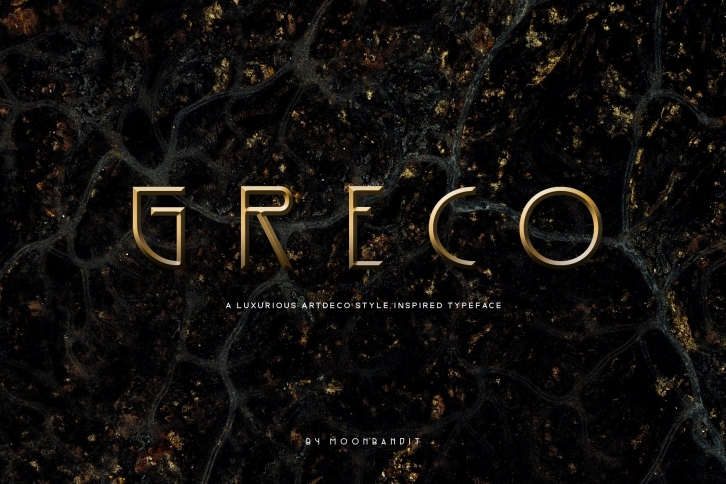
Greco is a gorgeous font that was realeased on August 9, 2020. The font can be used in many style contexts and design environments. Perfect for invitations, magazines, websites, logos, and more! It was designed by MoonBandit and the file size is 9.40 MB. Thanks for checking out this font!